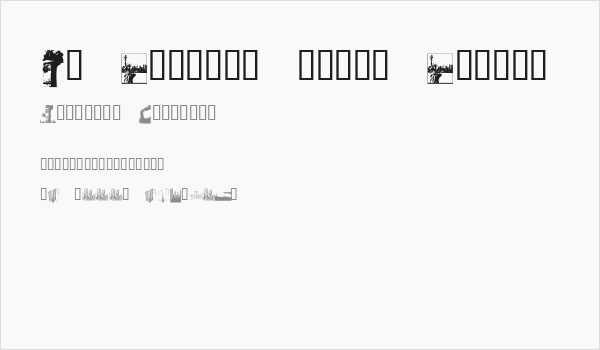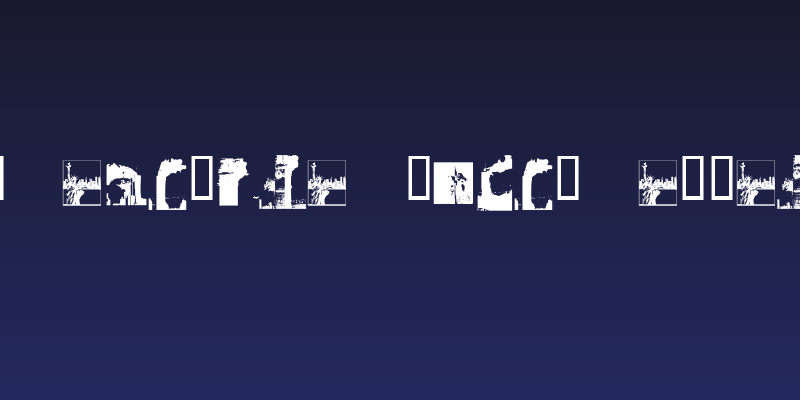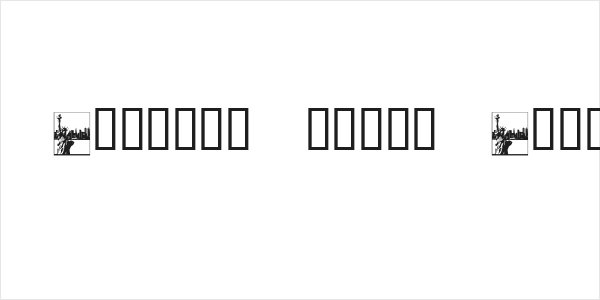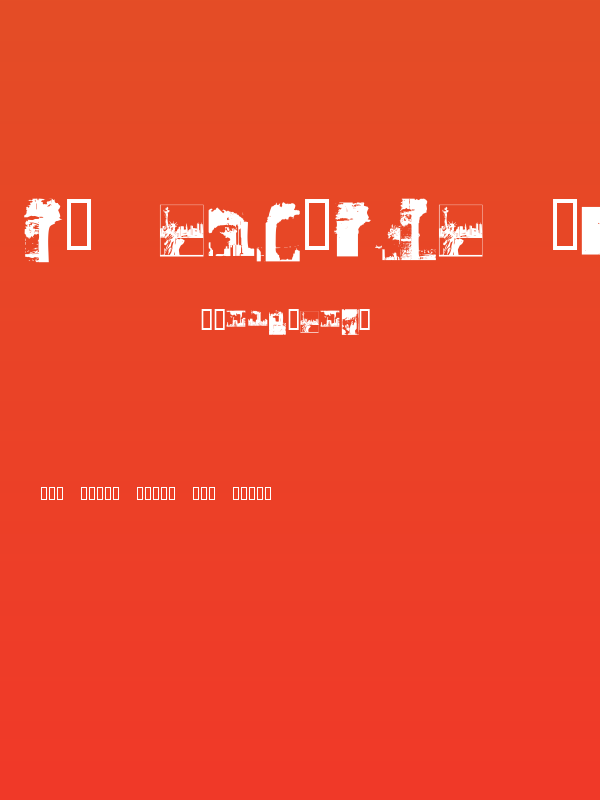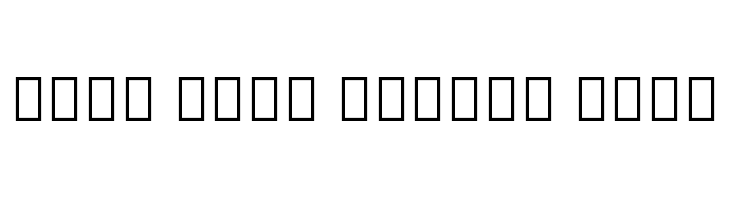
KR America Under Attack Font
This font features a unique and bold design, incorporating urban and industrial elements into each character. The letters are filled with intricate cityscape silhouettes, creating a dramatic and impactful visual style. The font's design is highly decorative, making it ideal for projects that require a strong visual statement. The characters are wide and have a high contrast between the filled and empty spaces, enhancing their visibility and making them stand out. This font is not suitable for body text due to its complex design but excels in creating eye-catching headlines or thematic graphics.
| Overall Style | Modern, Urban |
| Proposed Projects | Ideal for posters, album covers, urban-themed designs, and promotional materials that require a striking visual impact. |